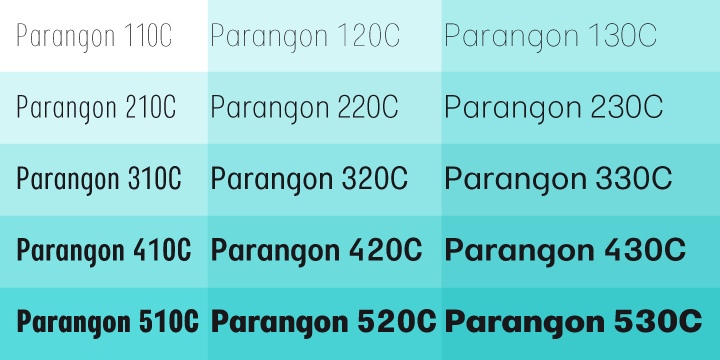
Parangon Font
Parangon Font is perfect for luxury brand identities, high-end fashion magazines, premium product packaging, sophisticated corporate communications, elegant hotel branding, upscale restaurant menus, exclusive event invitations, and refined architectural signage. This distinguished typeface excels in applications where impeccable style and refined sophistication are essential for creating memorable luxury experiences.
What makes Parangon Font truly exciting is its embodiment of typographic perfection and uncompromising elegance. The font features meticulously crafted letterforms with sublime proportions and flawless optical balance that demonstrate the highest standards of type design excellence. Its refined character details and harmonious rhythm create an atmosphere of understated luxury and intellectual sophistication. The typeface's exceptional craftsmanship and timeless appeal make it ideal for brands seeking to establish themselves as paragons of quality, taste, and excellence in their respective industries.
The Parangon Font family includes multiple weights from Light to Black, complemented by matching italic versions that enhance its expressive versatility. The font offers comprehensive OpenType features including small capitals, old-style and lining figures, extensive ligatures, and broad multilingual support. Additional stylistic alternates and swash characters provide designers with refined tools for creating bespoke typography solutions that reflect the highest standards of design excellence.